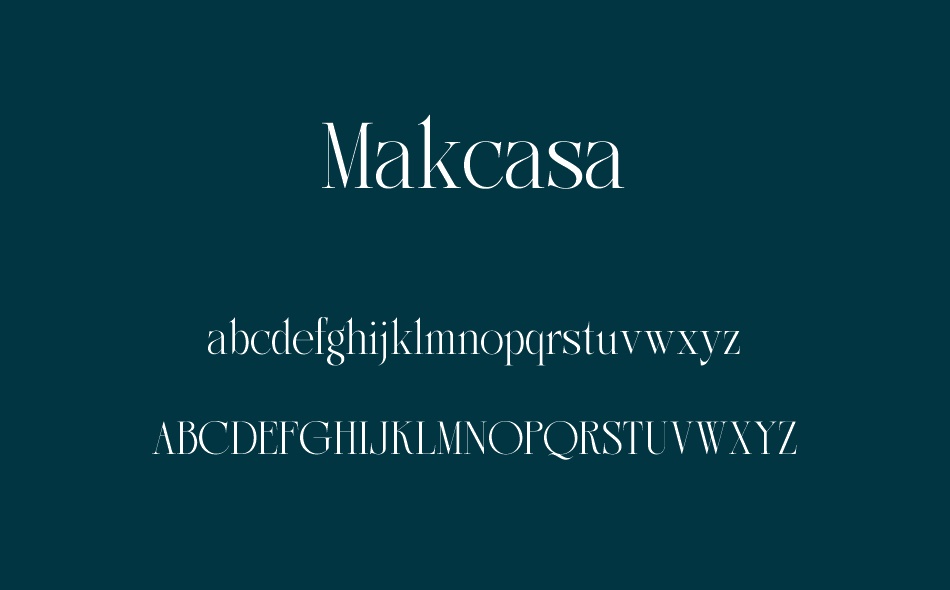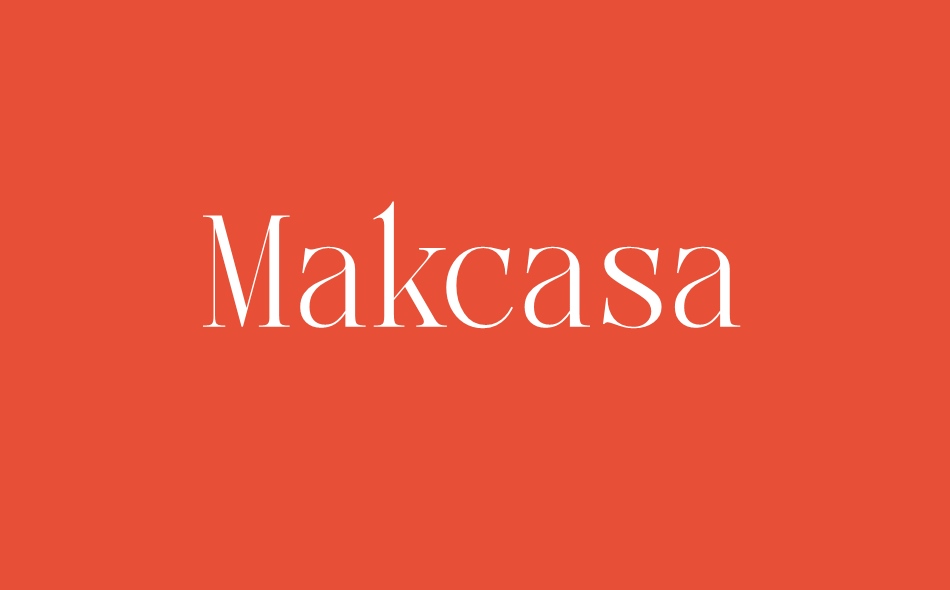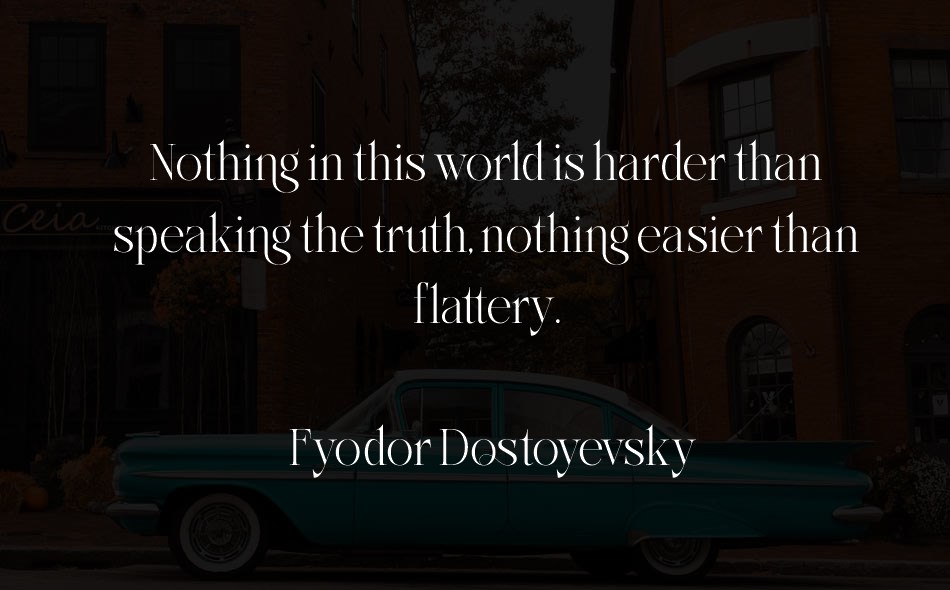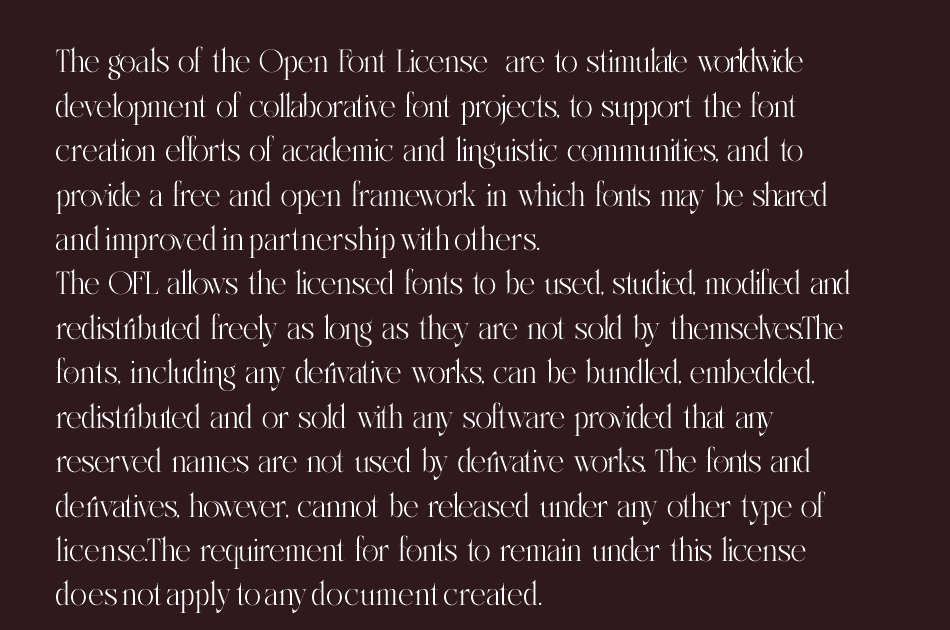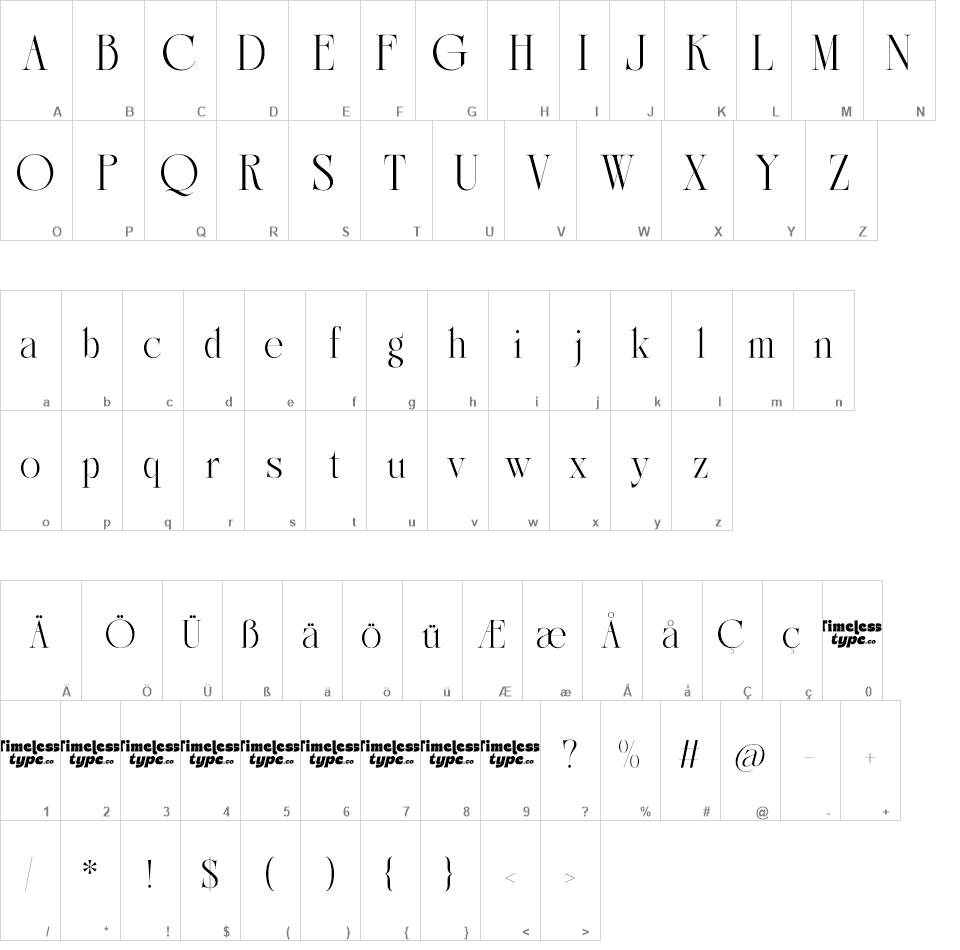
Makcasa font
Makcasa New Serif Display Typeface
Redefine visual luxury with timeless curves and sharp precision. Introducing Makcasa - New Serif Display Typeface, a mesmerizing typeface meticulously crafted to combine the drama of high-contrast stroke weights with the sophisticated flair of contemporary design. This display serif commands instant attention, featuring elongated ascenders, delicate horizontal hairlines, and distinctively ornate terminals that recall classic elegance while maintaining a fresh, modern sensibility. It is the perfect foundational asset for projects demanding maximum typographic impact and refined artistry.
Unlock unparalleled creative flexibility with an expansive character set. Makcasa - New Serif Display Typeface is equipped with robust OpenType features, including an extensive collection of 103 unique ligatures and 10 stylistic alternates. These features allow designers to compose truly bespoke headlines and custom wordmarks, transforming simple text into expressive graphic elements. This deep typographic toolset ensures seamless flow and visually engaging solutions, making complex layouts effortlessly dynamic.
Seamlessly bridge international communication with full global readiness. Beyond its striking aesthetic, Makcasa - New Serif Display Typeface is engineered for performance in the global design landscape. With its extensive multilingual support, Makcasa - New Serif Display Typeface adapts seamlessly across global markets, making it incredibly versatile for international projects. This comprehensive language coverage guarantees that your message maintains its integrity and sophisticated appearance regardless of the target demographic.
Elevate your brand narrative to a premium, unforgettable experience. This typeface is the definitive choice for designers focused on high-end identity development. Makcasa - New Serif Display Typeface is perfect for luxury branding, high-fashion editorials, opulent packaging design, and exclusive invitations. Deploy this font when you require an undeniable aura of quality and uncompromising modern elegance, ensuring your visual communication stands out in a competitive landscape.